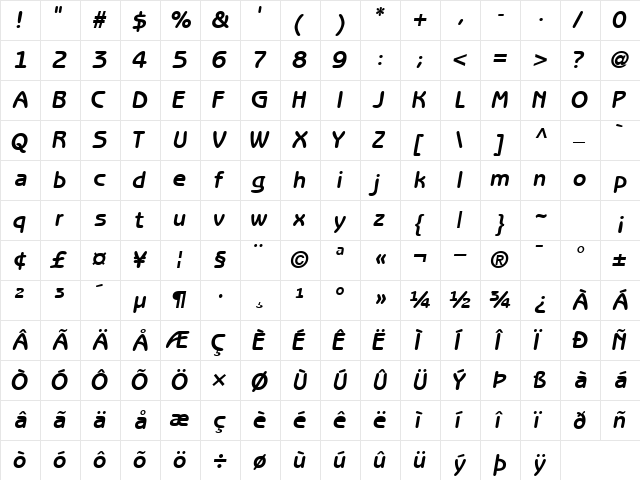
ExpressDecoGothicSSK BoldItalic Font Preview
Design Context for ExpressDecoGothicSSK Typeface
ExpressDecoGothicSSK takes a clean, functional approach — its unadorned letterforms prioritise legibility and work reliably across screen and print environments. The dynamic lean of this cut emphasises speed and emphasis in any layout. Its bold stroke weight gives it real presence on the page.
A strong choice for UI design, app interfaces, bold signage, and corporate brand systems.
Font Pairing: Use ExpressDecoGothicSSK for headlines alongside a lighter-weight sans or serif for body copy to establish clear visual hierarchy.
Pro Tip: Pair ExpressDecoGothicSSK with a display or serif font for headlines — its neutral character makes it an excellent supporting player in complex typographic systems.